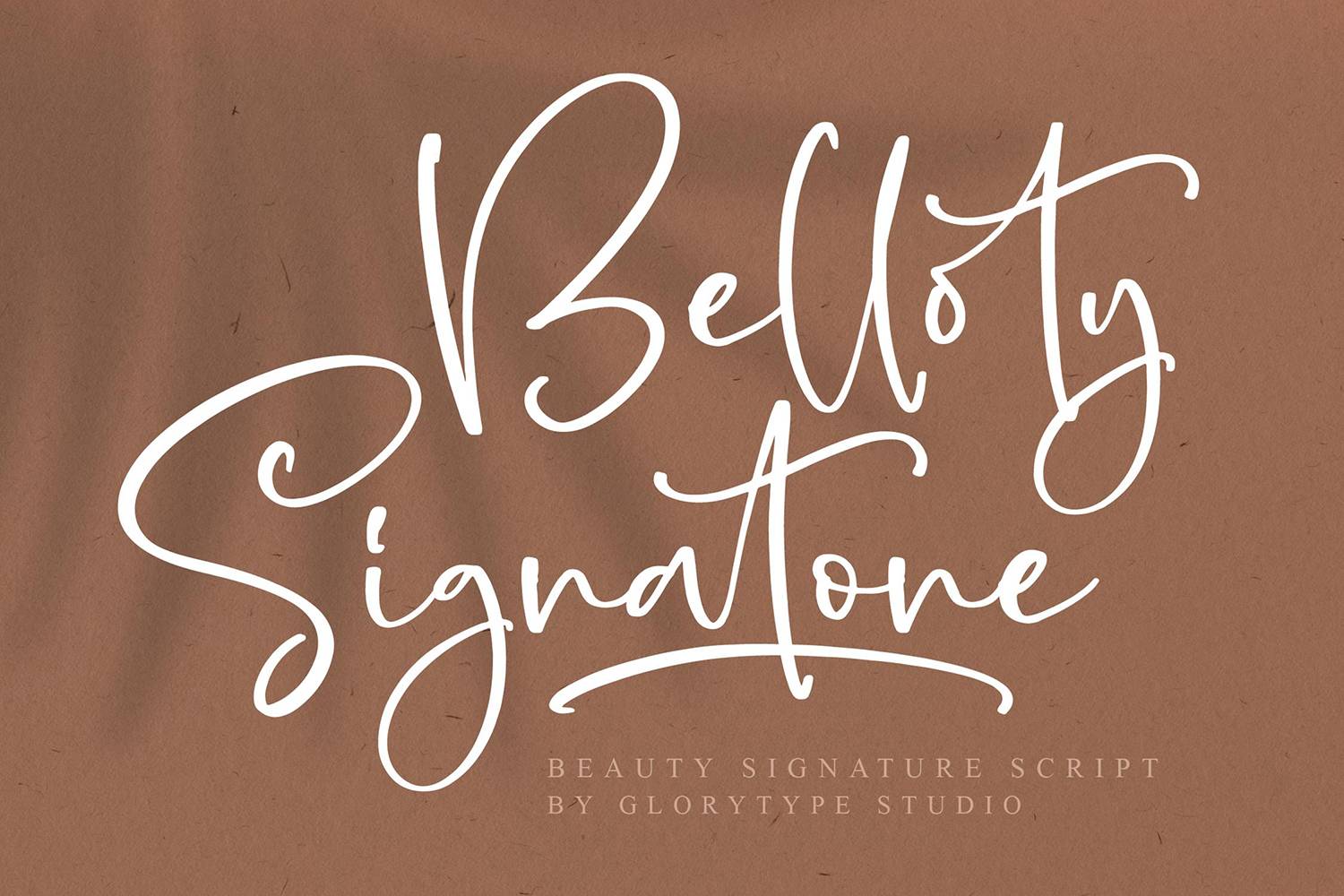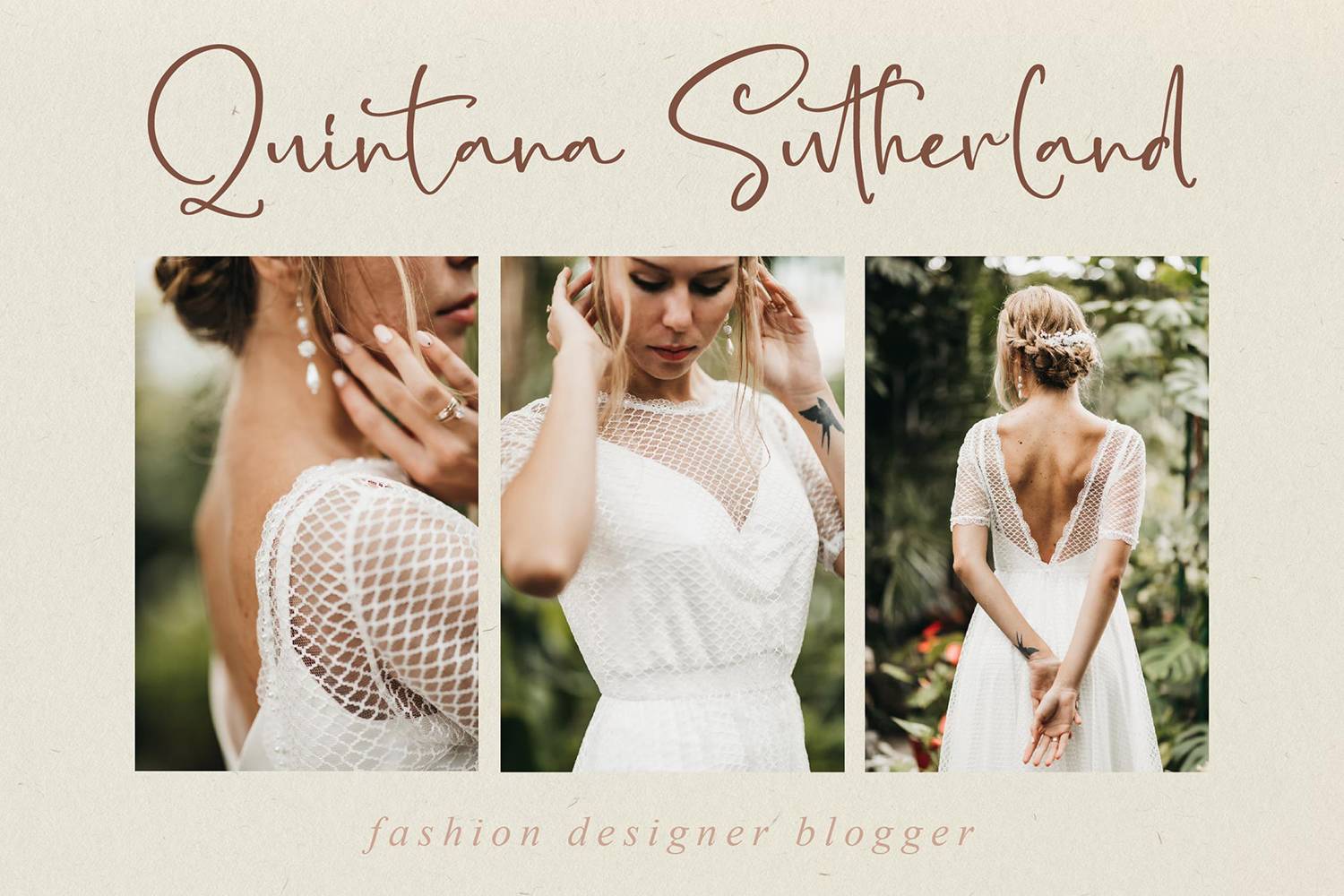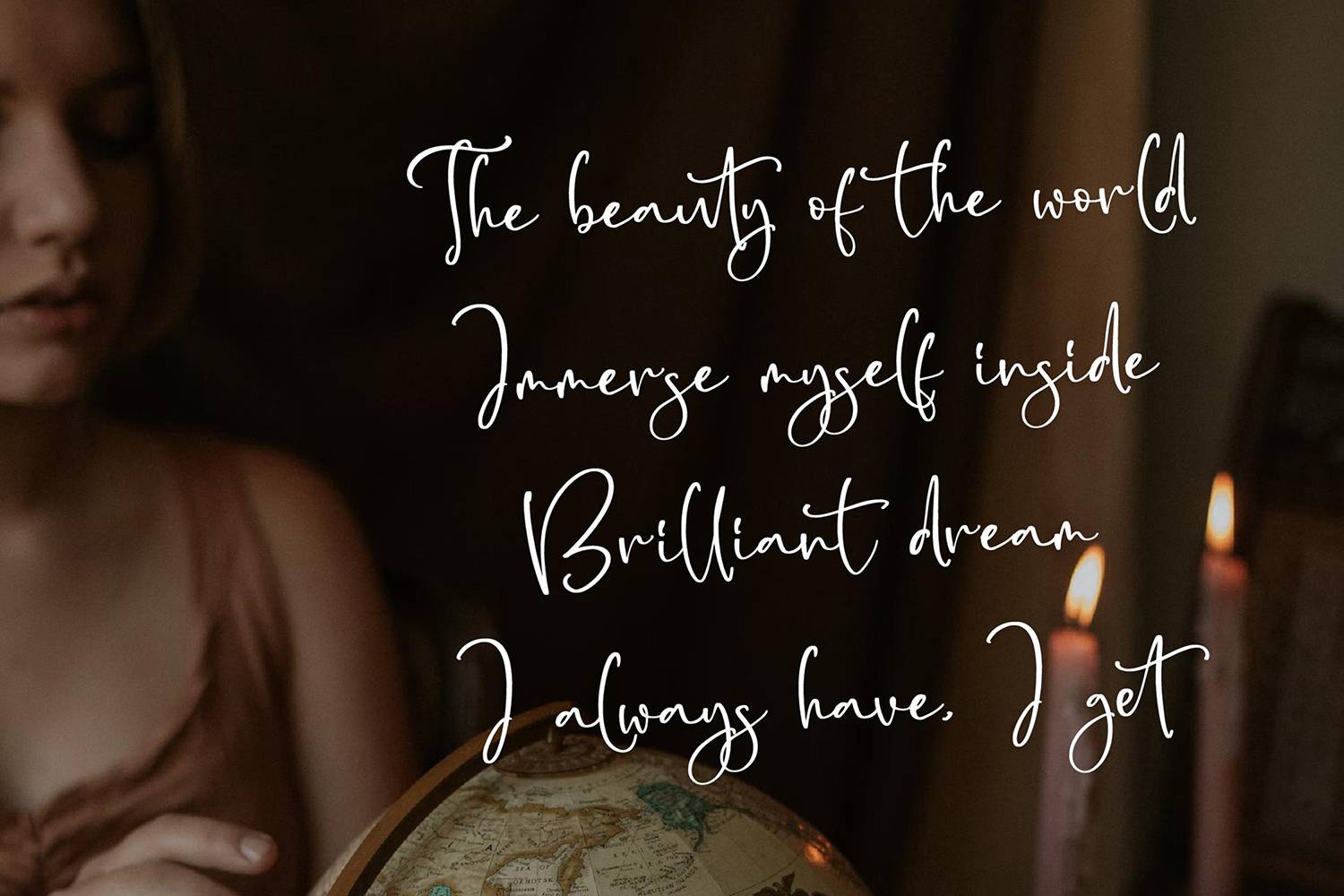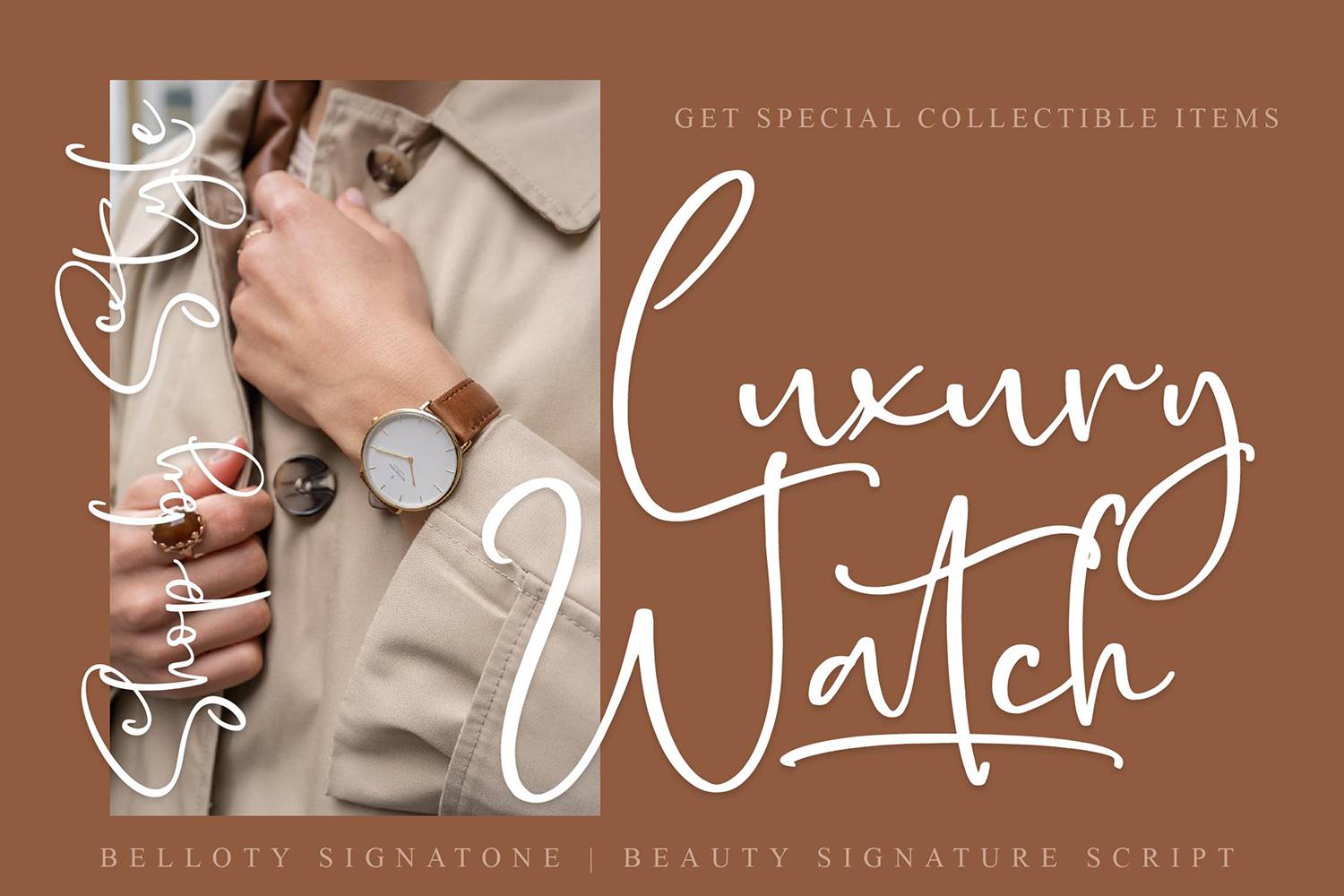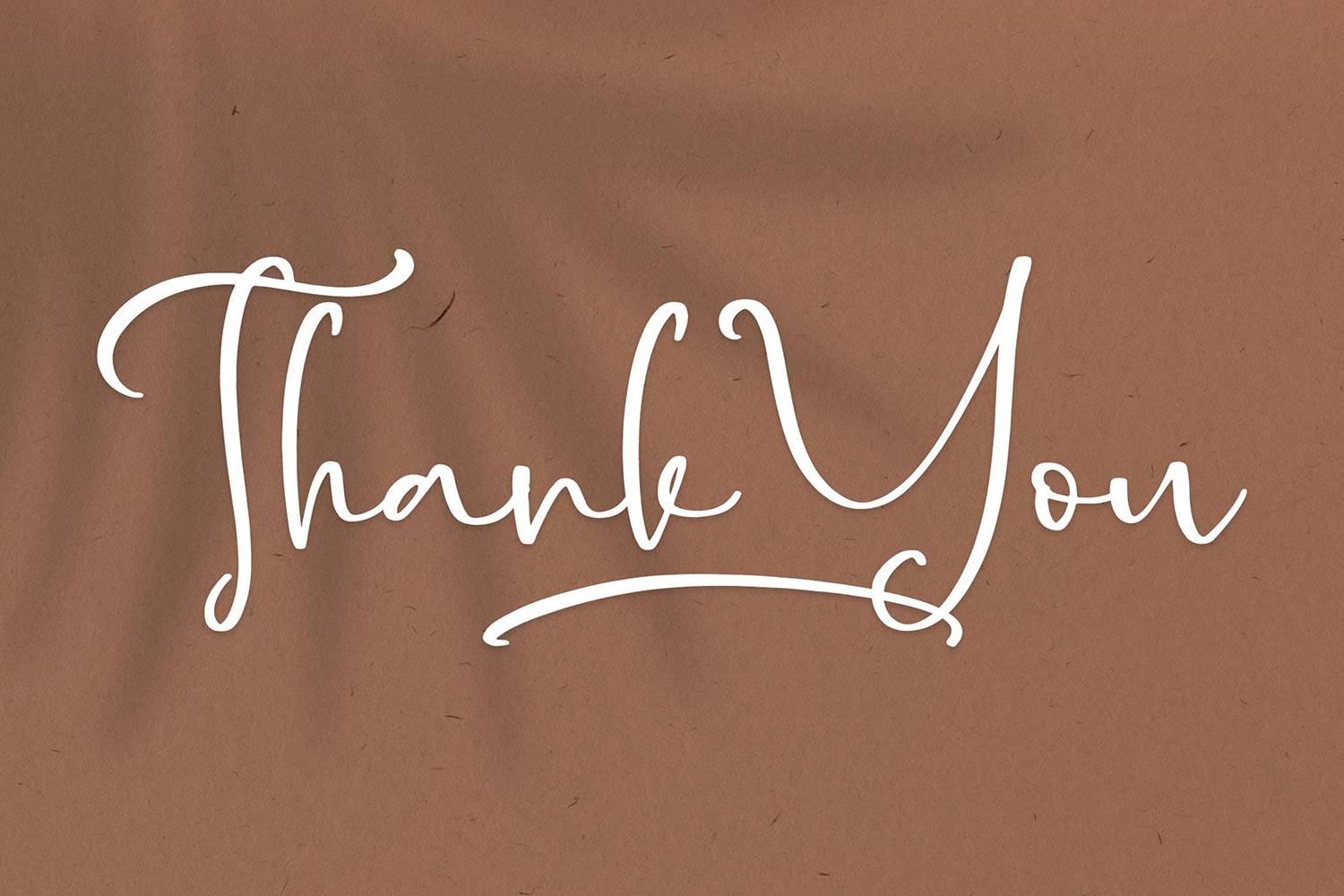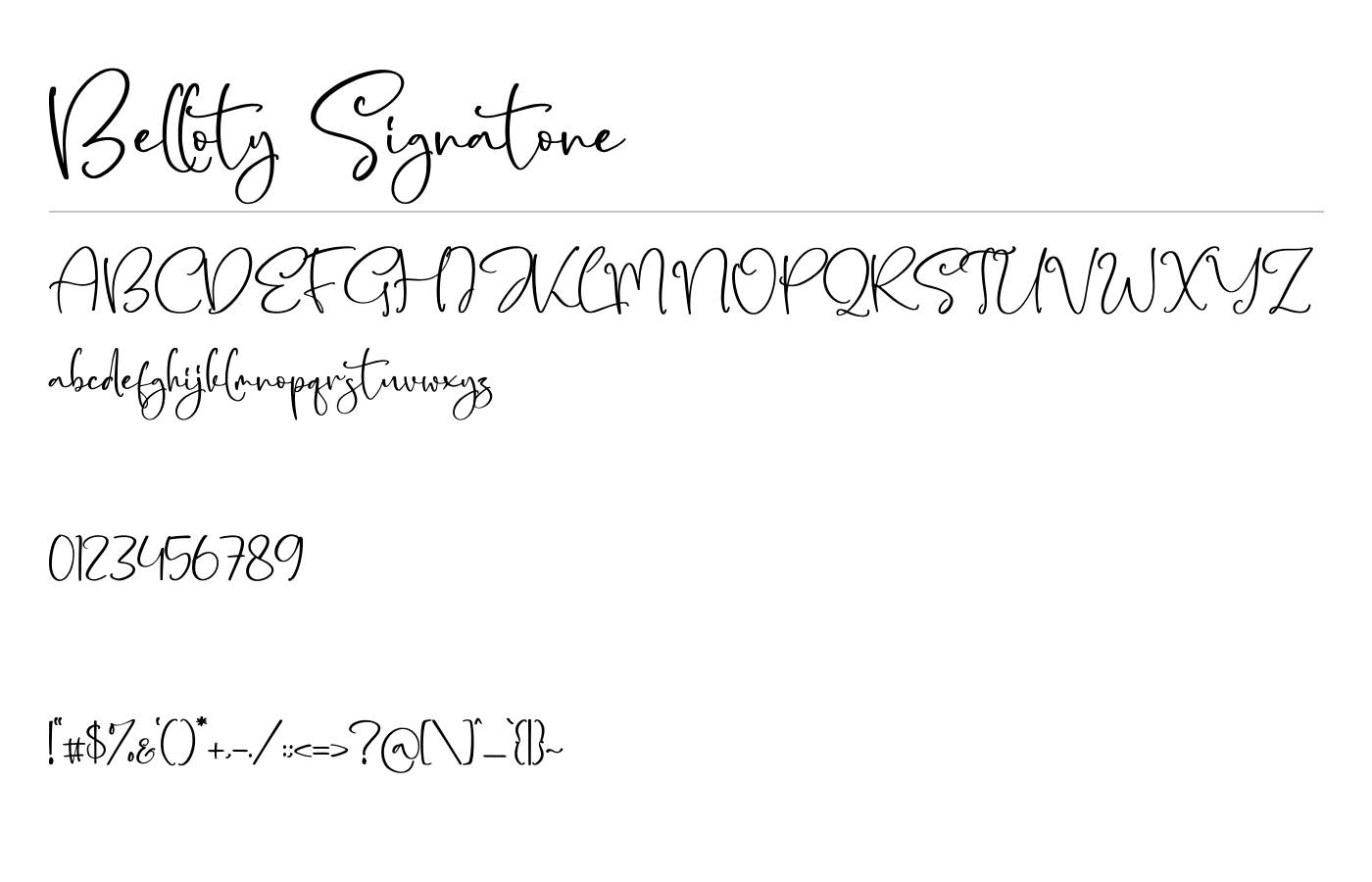
Belloty Signatone is an elegant, handwritten script font characterized by its delicate, flowing strokes and a light, airy feel. Its tall, narrow letterforms with subtle loops and curls give it a personal, signature-like style that works beautifully for branding, invitations, and stylish headlines where a sophisticated yet approachable touch is desired. This font shines in creative, fashion-forward contexts, bringing a refined yet casual charm to designs.
Belloty Signatone Font
About Belloty Signatone Font